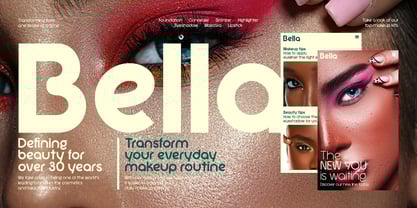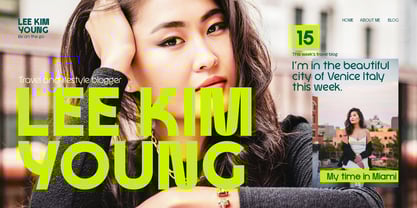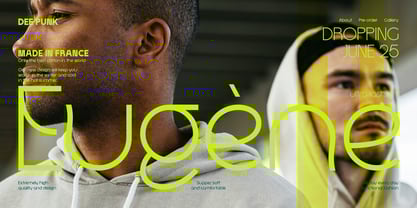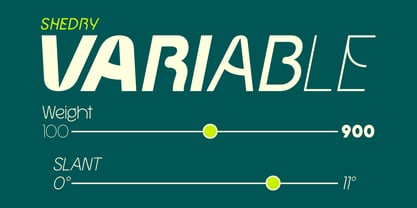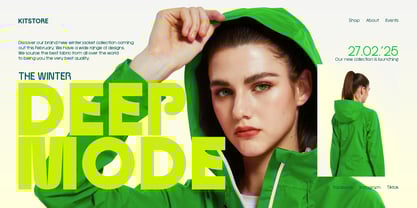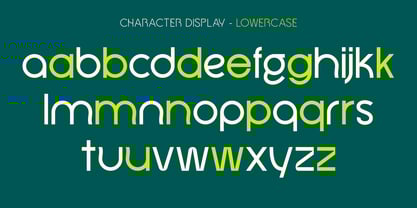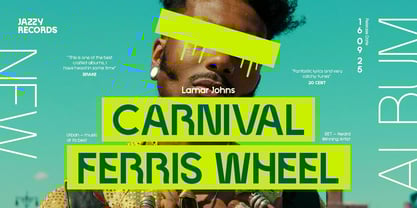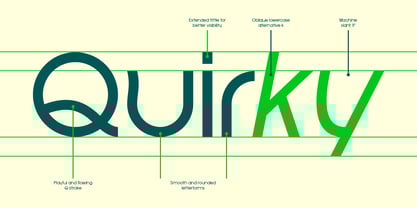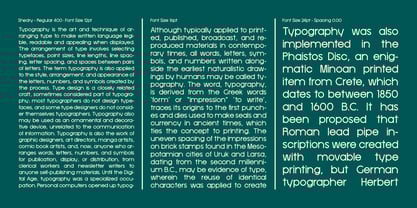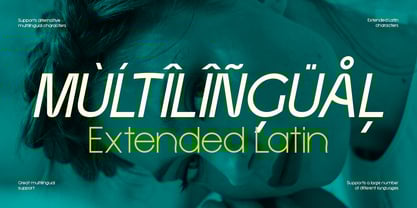
Shedry
by Valentino Vergan
The Shedry Font Family was designed by Martin Katibi and published by Valentino Vergan. Shedry contains 19 styles and family package options. More about this family
Shedry is a modern sans-serif typeface that blends a minimalist aesthetic with playful personality. Designed to strike a balance between professionalism and charm, Shedry is equally at home in bold branding, editorial design, packaging, and contemporary web projects.
The family features 9 carefully crafted weights, each with its matching Oblique version, for a total of 18 styles. It also includes a powerful Variable font, allowing seamless control over weight and slant—perfect for flexible, responsive typography.
With its clean geometry, subtle quirks, and extended language support (260+ languages), Shedry offers a versatile toolkit for modern creatives. Packed with OpenType features like ligatures and alternates, it brings a polished, stylish edge to any design.
Features:
18 styles: 9 weights + matching Obliques
Fully-featured Variable font
OpenType alternates and ligatures
Extended Latin character set (260+ languages)
Perfect for branding, editorial, packaging, web design & UI
Clean, confident, and delightfully expressive—Shedry is ready to elevate your next creative project.
Designers: Martin Katibi
Foundry: Valentino Vergan